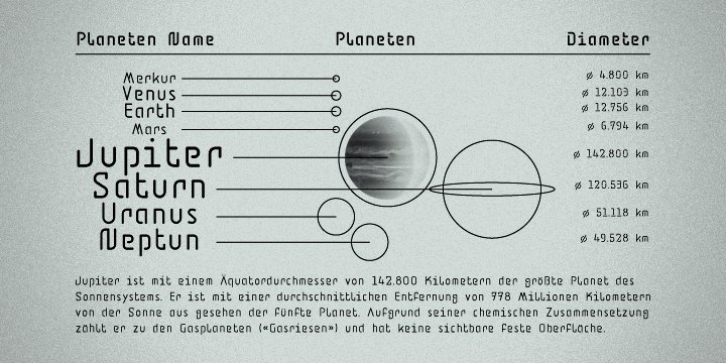
The BD Jupiter font family contains the four styles: regular, bold, regular stencil and bold stencil. The inspiration source for this font are stencil letterings on architectural plans, military boxes and machines etc. BD Jupiter’s main characteristics are the open shapes in A, R, P, a b, e, g, p, q and the serif spices in I, J. L, S, T, f, g, i, j, l, r, t.
The stencil versions add even more characteristics to some of the letters. Its usage ranges from big lettering on products, buildings, maps, graphic-charts, interface-design to titles in printed matters with a cool approach.